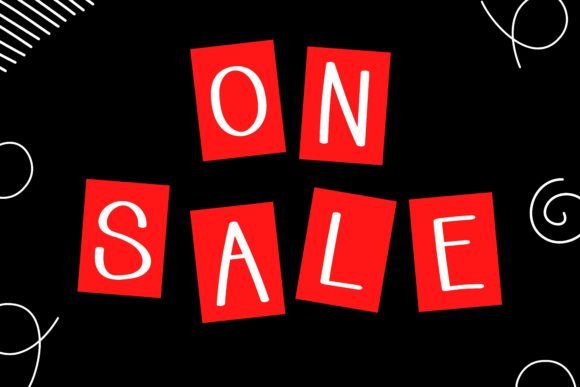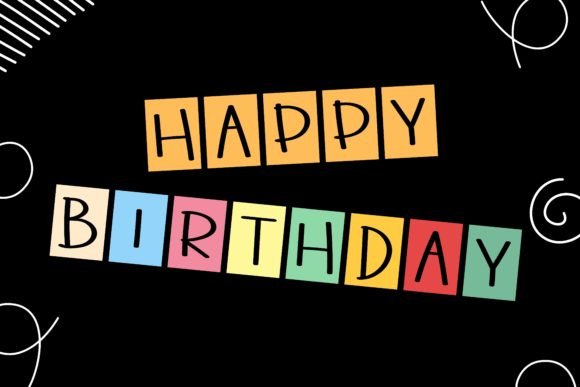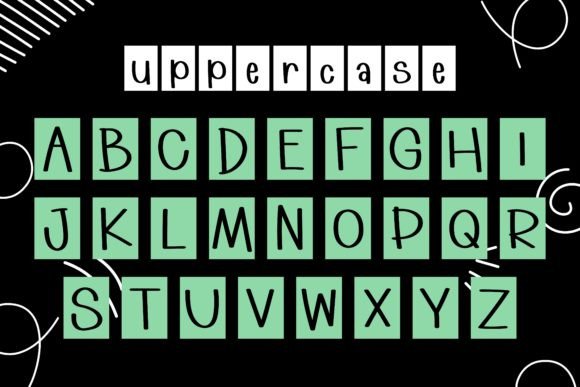
Introduction to Decor Tag Font Font
Do you remember the moment when you stumbled upon the perfect font for your creative project? The excitement, the thrill, and the sense of accomplishment that came with it? For designers and crafty individuals, finding the right font can be a game-changer. And, we’re excited to introduce you to Decor Tag Font Font, a fun and friendly decorative font that’s sure to become your go-to choice for any occasion.
- High-quality design resource ideal for creative projects, with a unique, decorative style that adds a touch of elegance to any design.
- Perfect for use in graphic design, digital art, and typography projects, adding a touch of sophistication and creativity to any design.
- Includes a range of decorative elements, from intricate patterns to elegant flourishes, making it a valuable design resource for creative professionals.
- High-resolution design, ensuring crisp and clear typography, even at larger sizes, making it ideal for print and digital applications.
Honest Review: Decor Tag Font Font
What works well: ✨ The Decor Tag Font Font is a high-quality design resource that offers a range of stylish and modern fonts. The transparent background makes it easy to customize and blend with any design. I particularly enjoyed the variety of font styles and the fact that they’re free to download.
- Range of stylish and modern font styles
Overall impression: I was impressed with the Decor Tag Font Font and would recommend it to designers looking for a free and high-quality design resource. While there are some limitations, the benefits far outweigh the drawbacks.
The Decor Tag Font Font is a high-quality design resource ideal for creative projects requiring a touch of elegance and sophistication. With its transparent background, this font is perfect for adding a decorative element to your designs.
To get the most out of the Decor Tag Font Font, experiment with different font sizes, colors, and combinations to create unique and eye-catching designs.
The Decor Tag Font Font is ideal for:
- Birthday and party invitations
- Food and beverage branding
- Home decor and furniture design